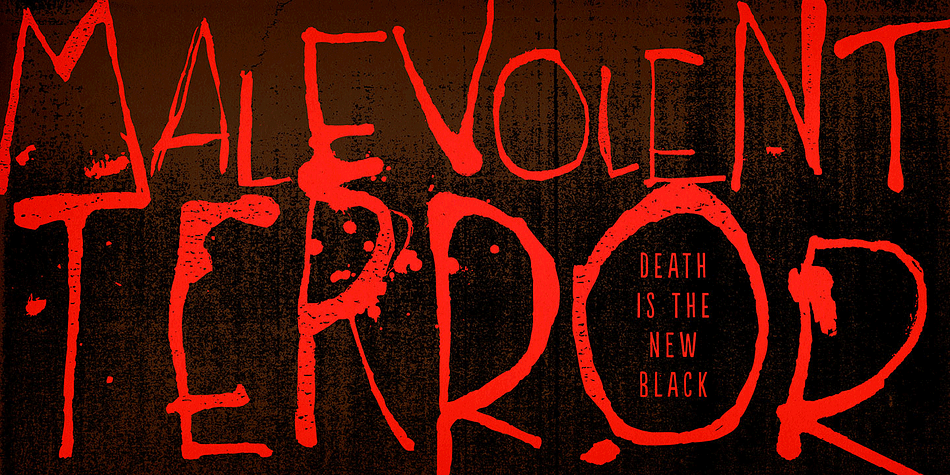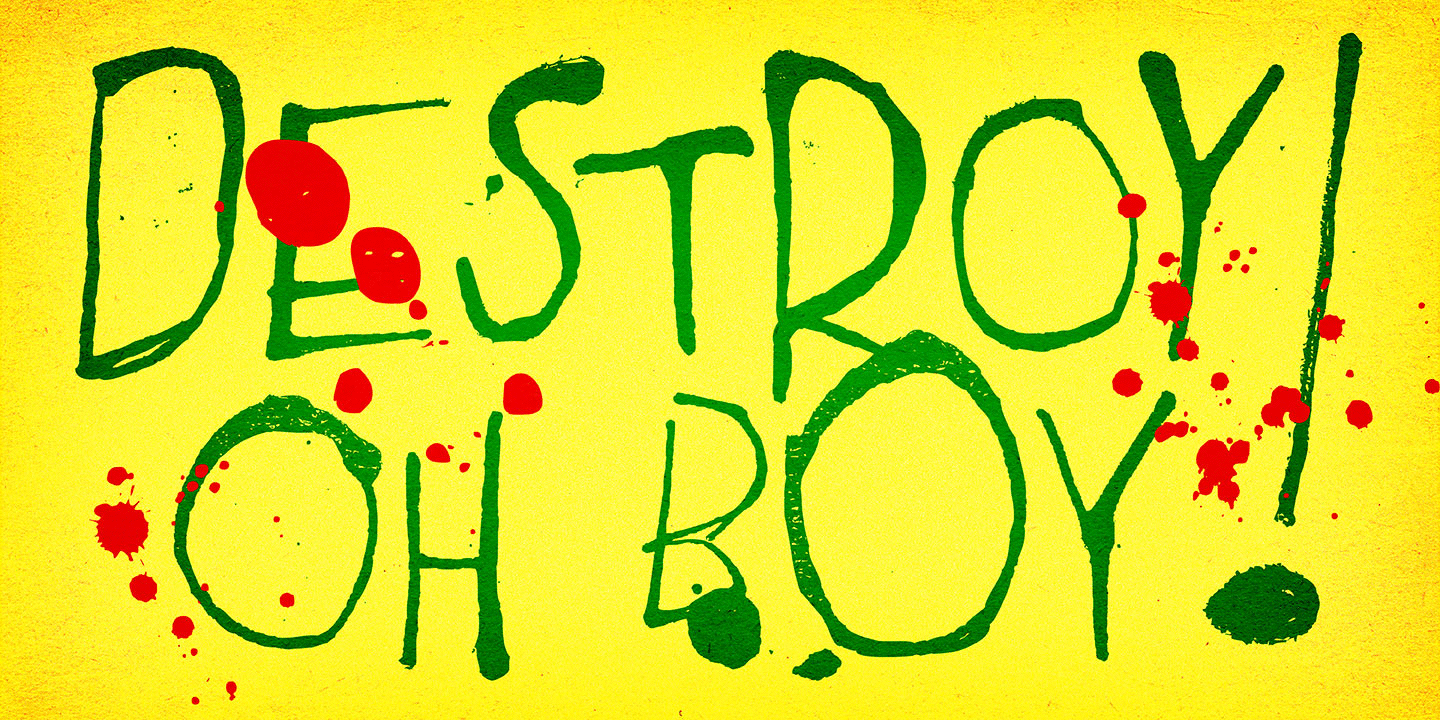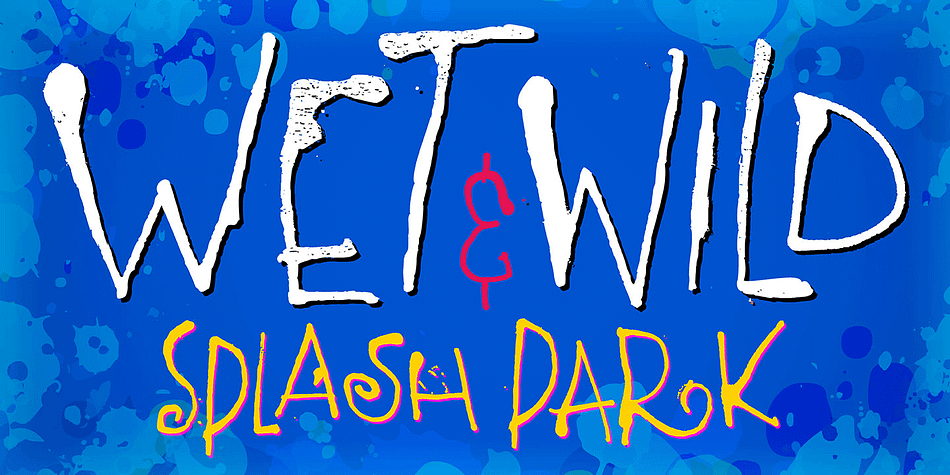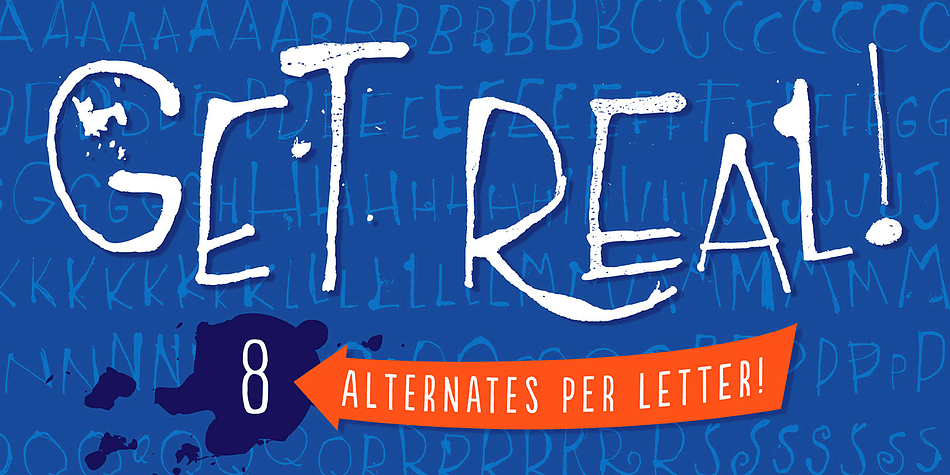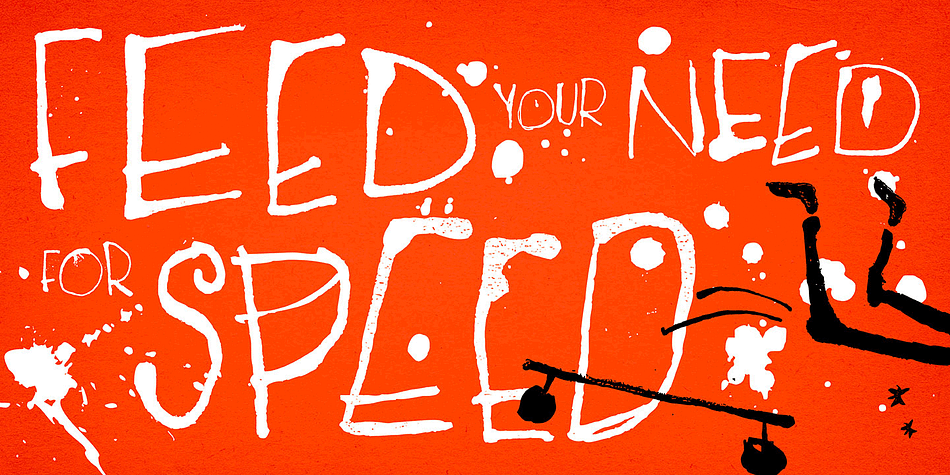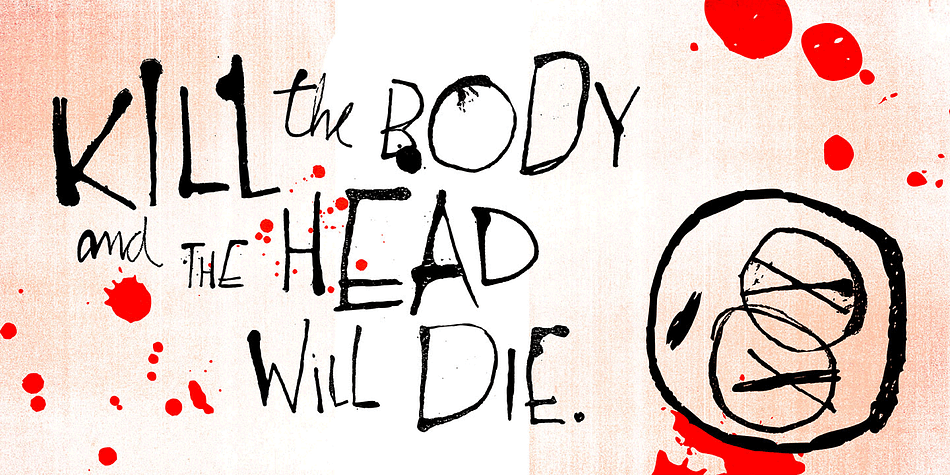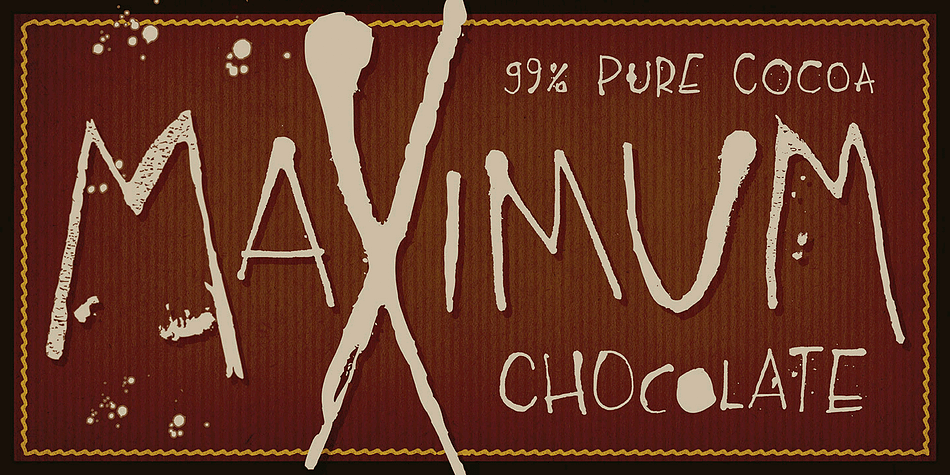
Rockinstead is a dingbat, grunge and hand display font family. This typeface has two styles and was published by PintassilgoPrints.
Rockinstead counts 1, 2, 3, 4, 5, 6, 7, 8… Eight variations per letter, plus alternates for numbers and even for punctuation marks! It is equipped with some clever OpenType programming to make substitutions on-the-fly: the Contextual Alternates feature, with the help of a very careful kerning table, takes care of cycling the alternates in an amazing random-like way, impressively mimicking a true handwritten text. The Discretionary Ligatures feature manages the substitution of handy cursive catchwords, adding that charming twist.
This typeface was originally painted on paper, drawing inspiration from Ralph Steadman’s seminal lettering style. On a first glance it may look quite wild - and it proudly is, indeed. But look again: it is stylishly wild, it is strong, unpredictable, full of attitude and good energy. This multifaceted font will certainly strike its way for free-spirited design applications.
Just please be warned: it’s seriously addictive!